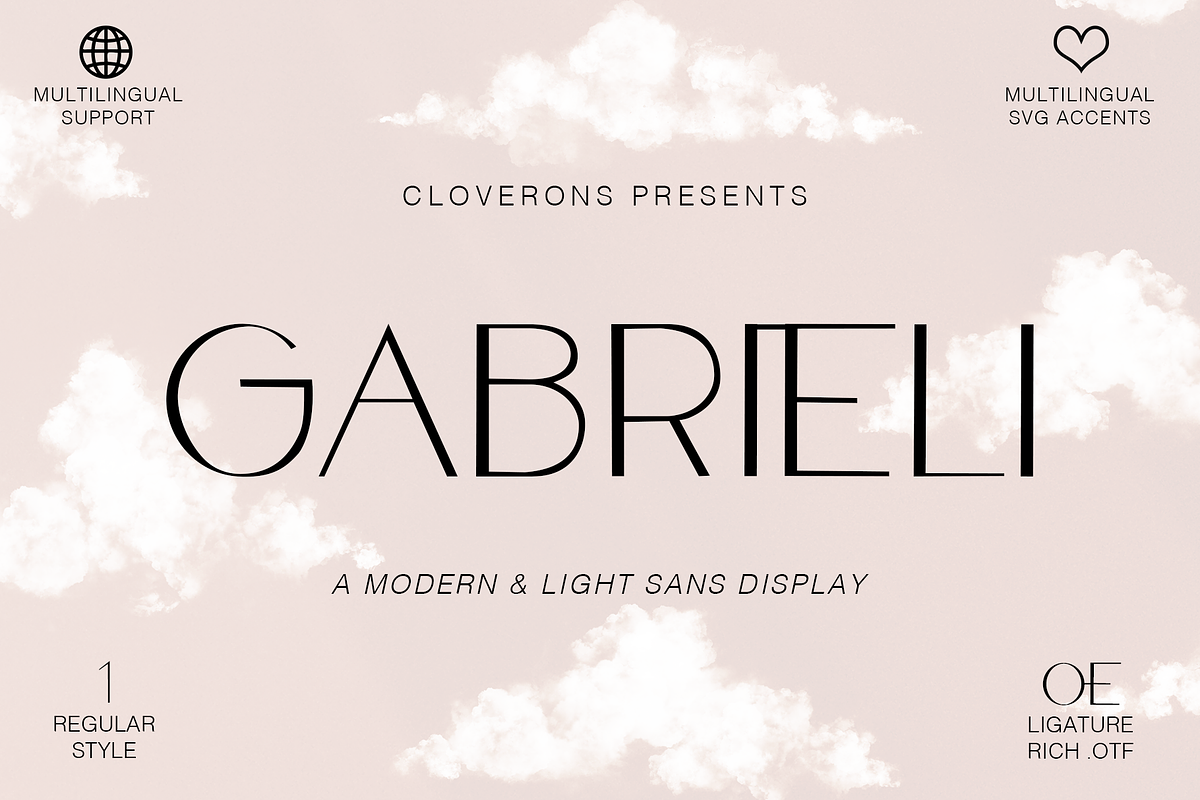
Gabrieli - Fancy Modern Sans Display Font Free Download is a sleek and contemporary typeface designed to make a statement. With its unique blend of sharp angles and smooth curves, this font is perfect for headlines, logos, branding, posters, and other display uses that demand attention. Its modern design and high contrast give it a stylish, high-end aesthetic suitable for both digital and print media.
The bold, clean letterforms of Gabrieli make it versatile enough for a wide range of creative applications while maintaining its sophisticated, elegant feel. Whether you're working on a luxury brand or an upscale event design, Gabrieli will elevate your work with ease.